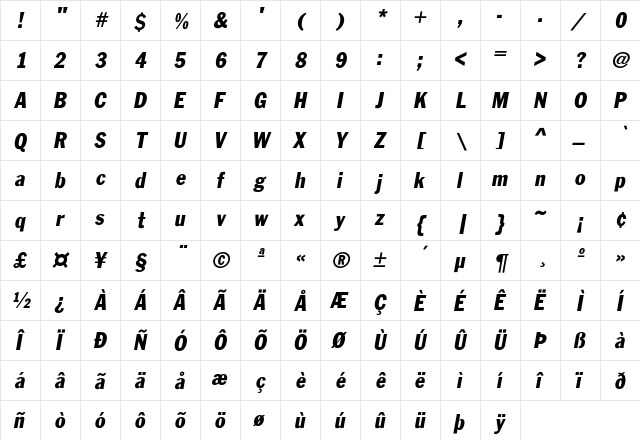
FranklinGothic-Cond-Obl Regular
Design Context for FranklinGothic-Cond-Obl Typeface
FranklinGothic-Cond-Obl has the quiet confidence of well-executed sans-serif typography: versatile, unobtrusive, and dependable at any size. Its narrow stance lets it pack a punch even in space-constrained designs.
Font Pairing: Works well alongside a characterful serif or display font that can carry the expressive load while FranklinGothic-Cond-Obl handles the functional copy.
Pro Tip: Try FranklinGothic-Cond-Obl in all-caps with moderate tracking for navigation and label copy — it performs well in systematic UI contexts.